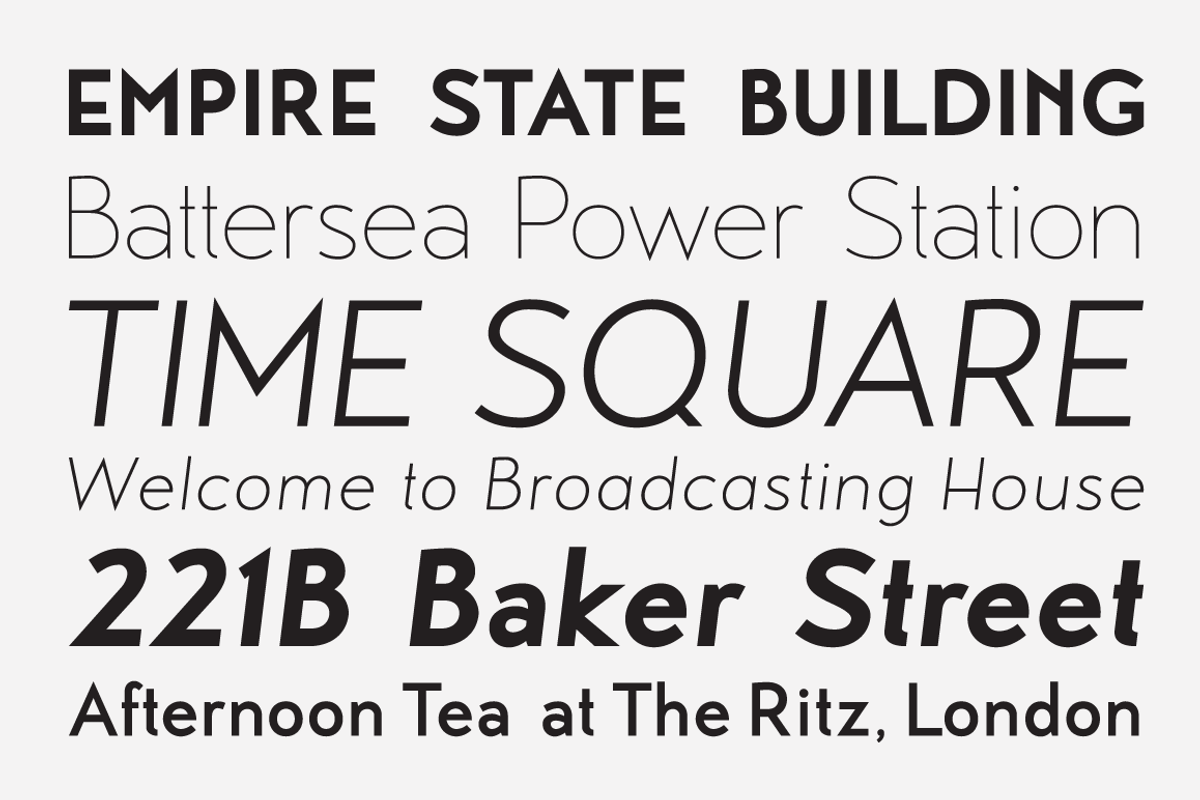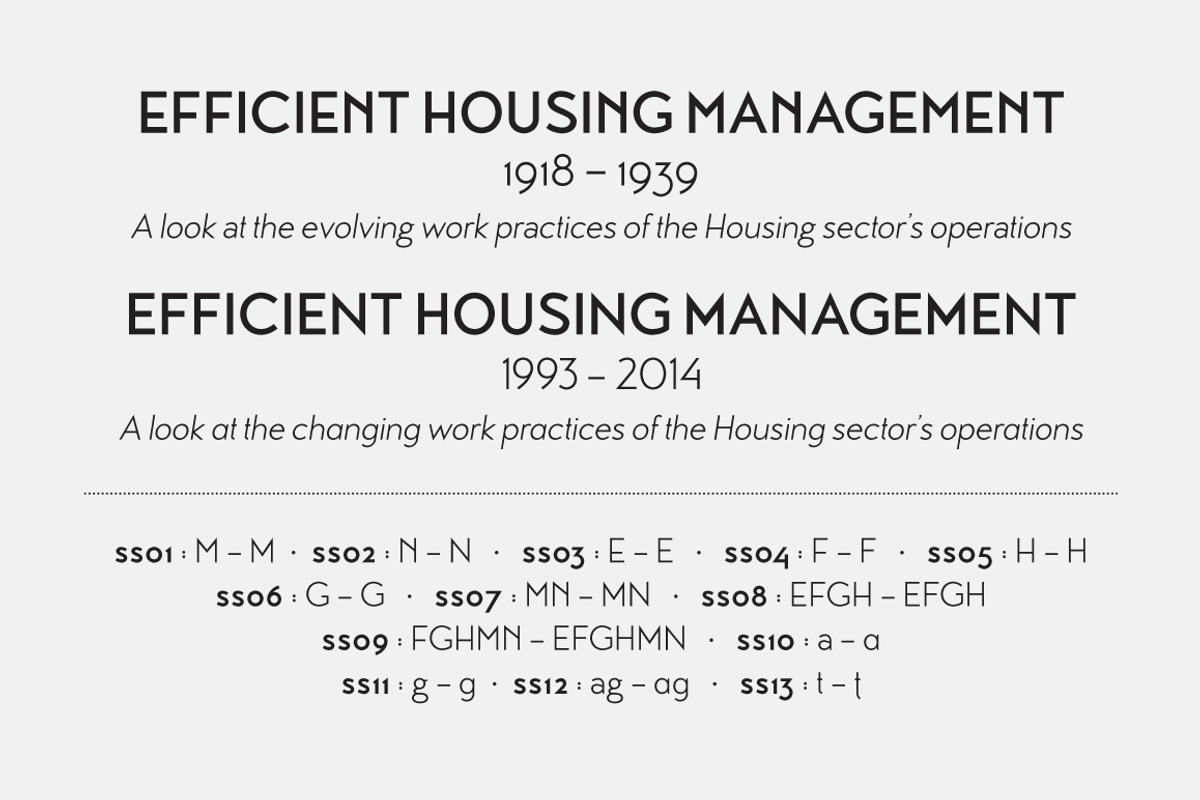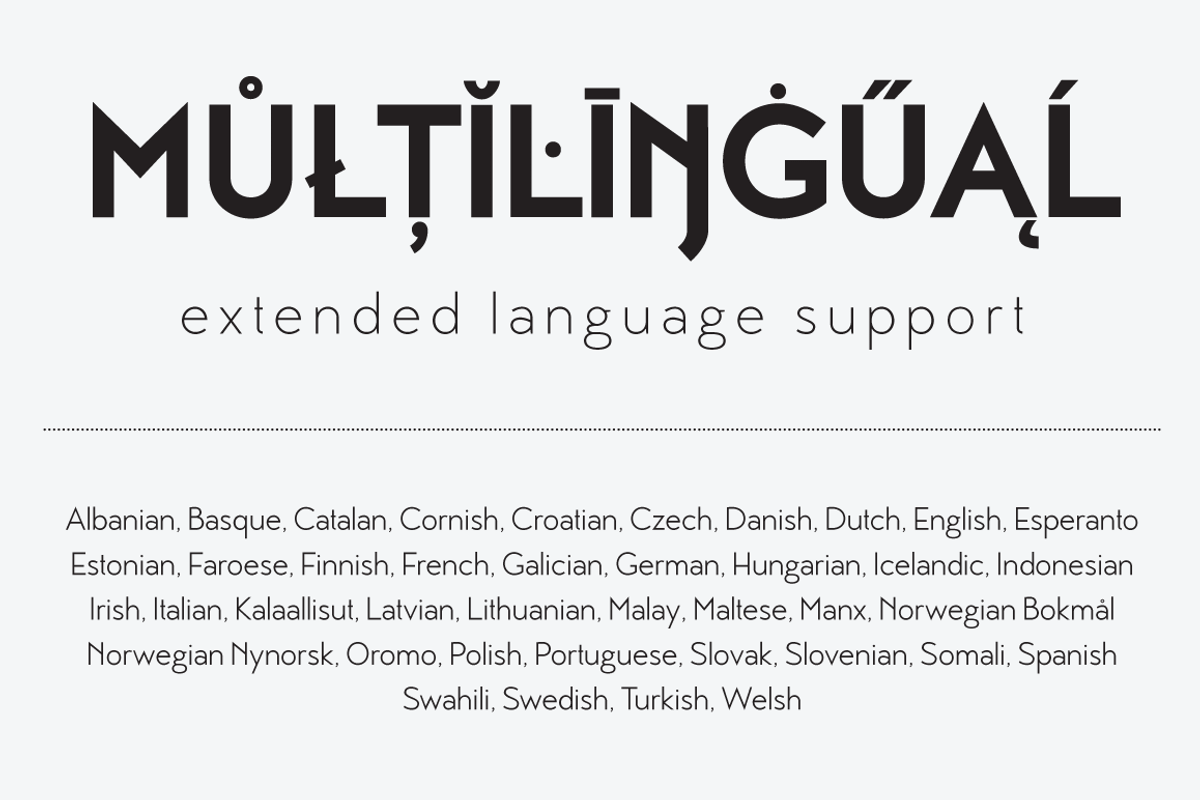
MB Vinatage
MB Vinatage by Ben Burford Fonts is a font selected for branding, posters, packaging, typography.
- with some art deco touches in the standard caps like the N and the low bars on the E, F & H but using the stylistic alternates these can be
- the same applies to the lower case letters, with an alternate a and g and a stylistic lowercase t.
Why MB Vinatage is worth a look
MB Vinatage by Ben Burford Fonts fits naturally into Branding, posters, packaging, typography.